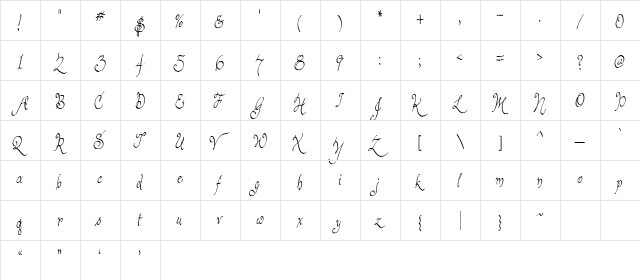
LD Antique Elegance Regular Font Preview
LD Antique Elegance Regular
Design Context for LD Antique Elegance Typeface
LD Antique Elegance has the warm character of retro typography — evoking diners, record sleeves, and the golden age of print advertising.
Font Pairing: Combine LD Antique Elegance with a simple slab or neutral sans — period-accurate companions reinforce the vintage feel without competing for attention.
Pro Tip: Lean into LD Antique Elegance's period character by pairing it with aged paper textures, muted colour palettes, and vintage illustration styles.